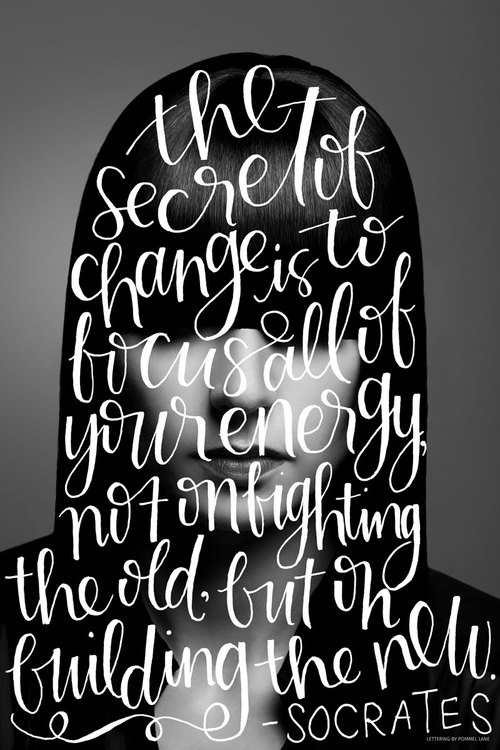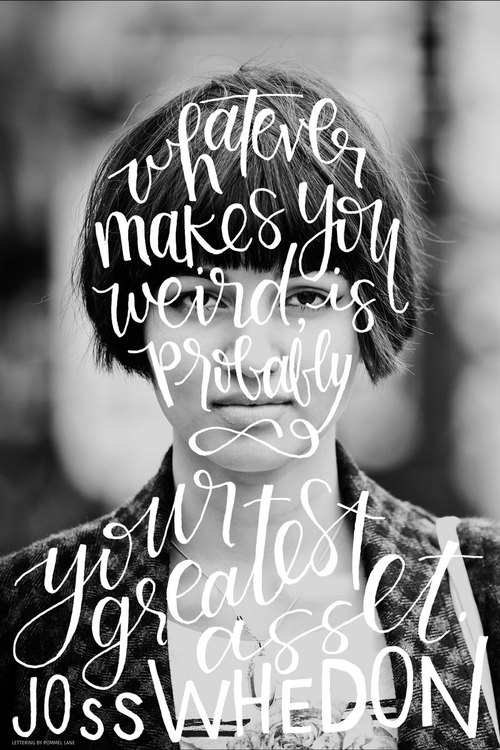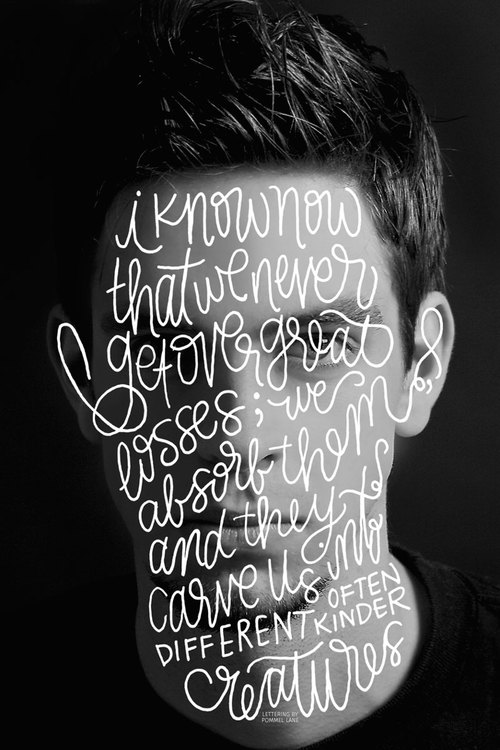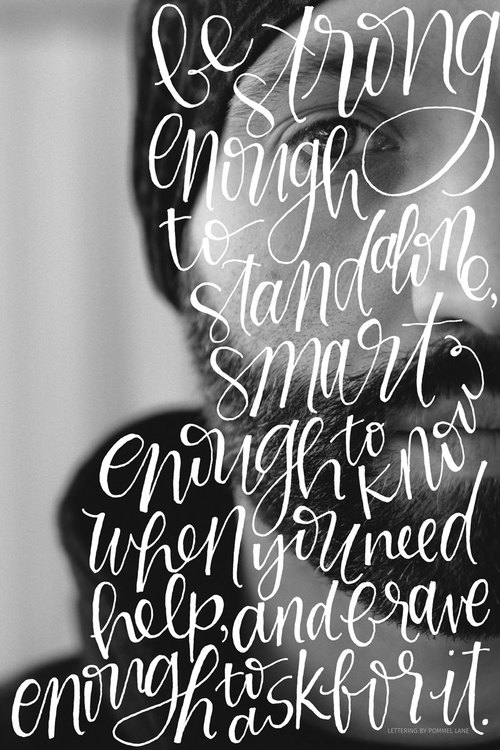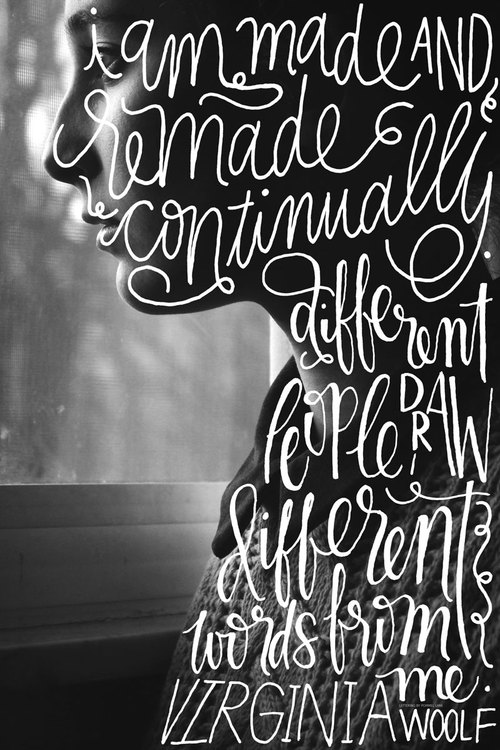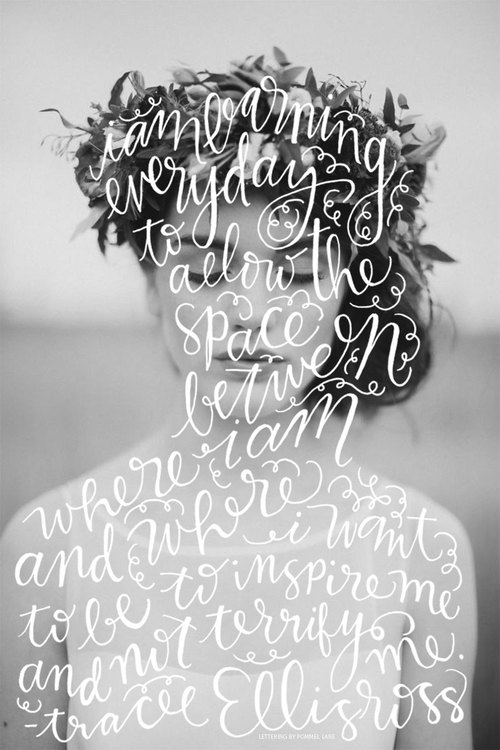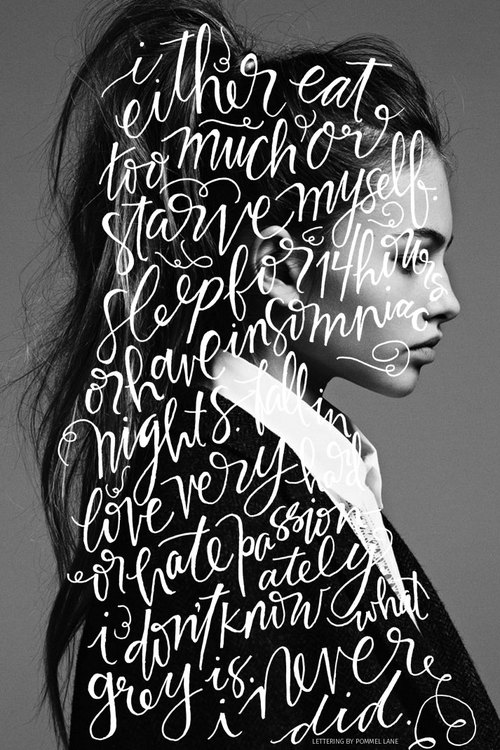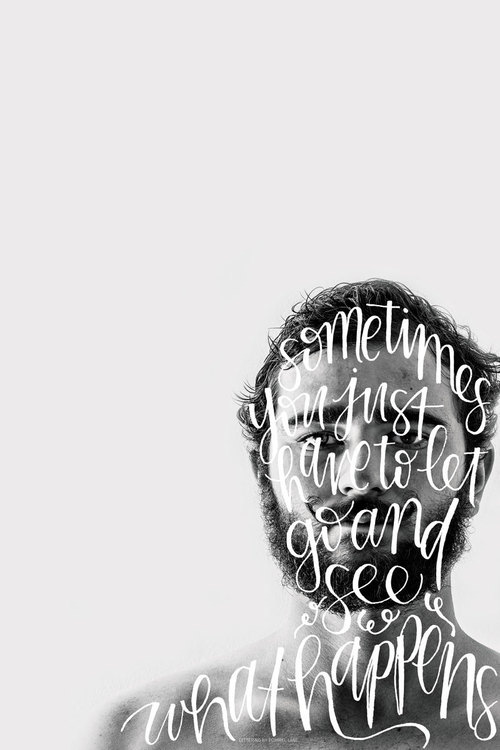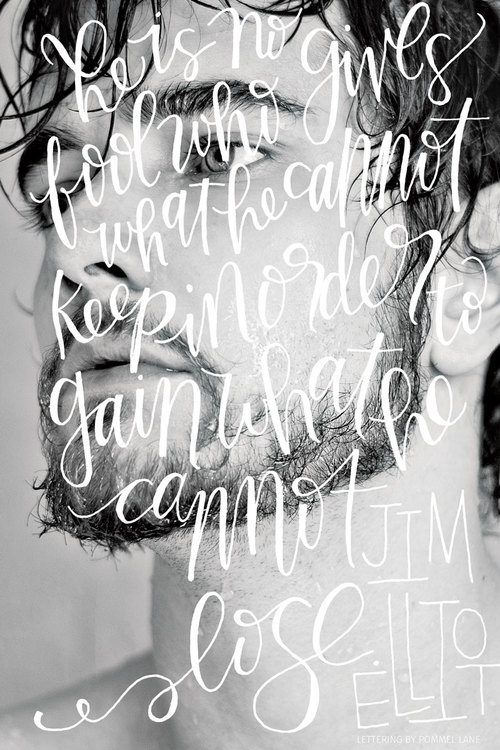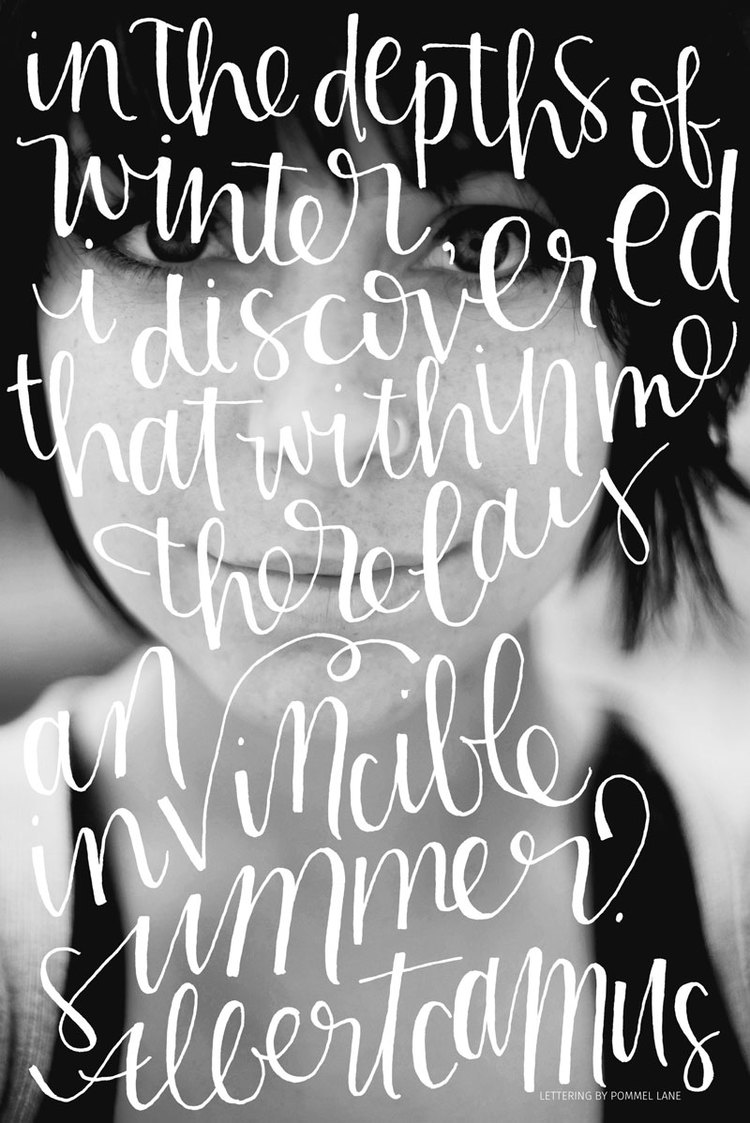
Touched by the hand of Hannah
“Silhouettes” is an on-going series on Pommel Lane blog, the digital avatar of Yours For Pretty Letters Hannah. “What started out as a personal effort to freely practice my lettering in unique and unstructured forms has quickly become the inspiration for a larger project coming in 2015” says the typographer of a project that will feature Creative Commons photography by other artists with overlaid hand-lettering by Pommel Lane to create one-of-a-kind portrait images. Hand lettering lovers, please rejoice.